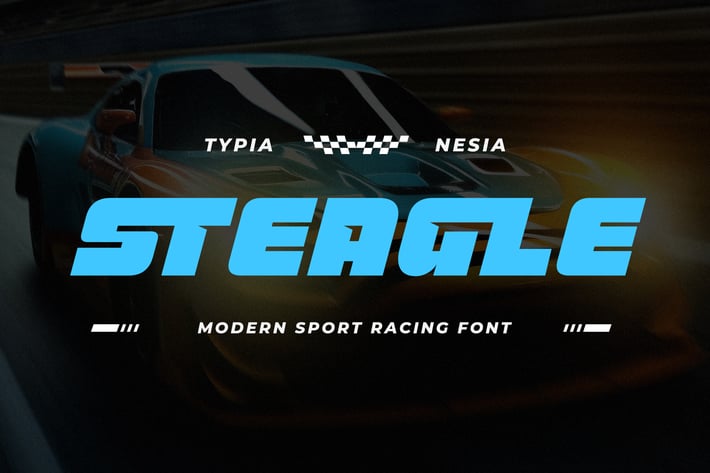
Steagle - Modern Sport Racing Game Font
Steagle - Modern Sport Racing Font - Dynamic Bold Game Display Font
Steagle is a Modern Sport Racing Font designed to infuse your projects with speed, power, and precision. With its bold and dynamic letterforms, Steagle captures the essence of competitive sports and high-octane racing, making it the ideal choice for any design that demands a strong and energetic presence, such as sports branding, automotive designs, race event promotions, athletic apparel, game design and more, Steagle adds a modern and aggressive touch to your visual identity. Whether you're creating logos, posters, or digital content, this font delivers a professional and impactful look. Comes with of packed uppercase and lowercase letters, punctuation, numerals, and a variety of alternates. The font also includes ligatures and supports multiple languages, giving you the flexibility to create custom and globally appealing designs. Crafted with precision and an eye for modern aesthetics, Steagle is designed for professionals who want to make a bold statement. Its sporty and contemporary design ensures that your projects will stand out, exuding confidence and energy.